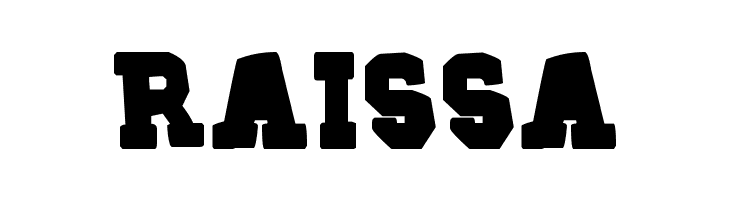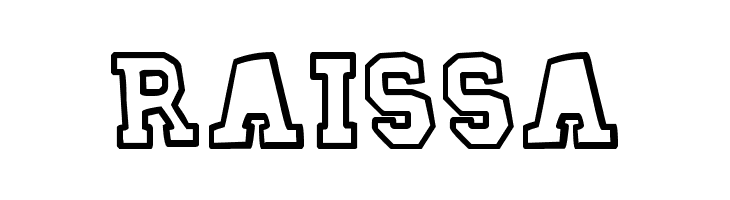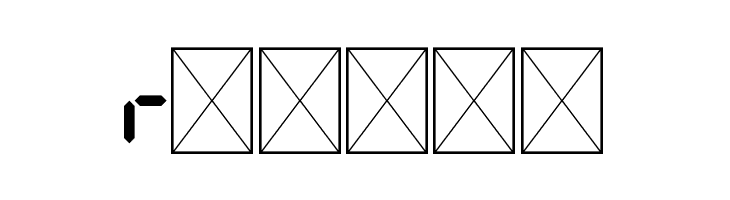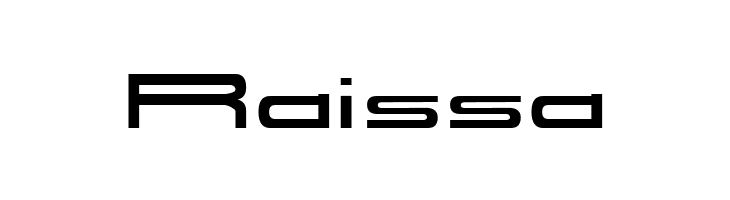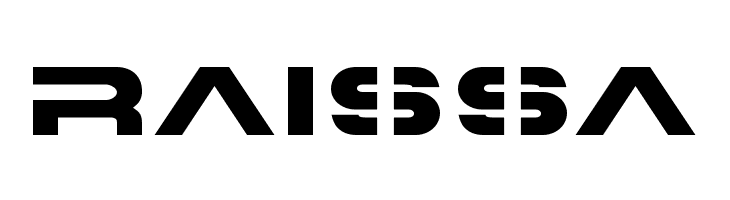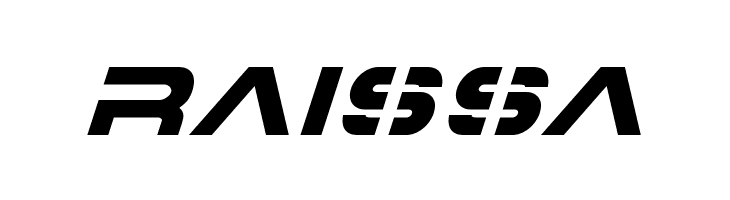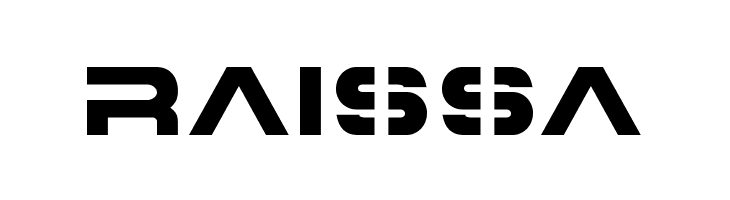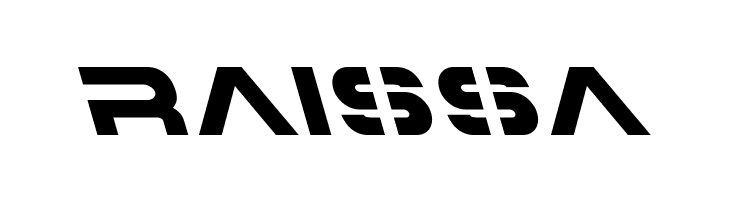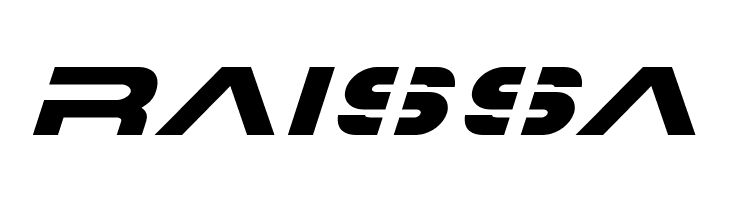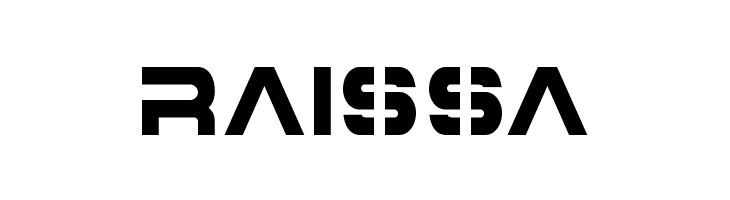
A bold, hand-drawn font with sharp, angular edges and a graffiti-like style.
A bold, geometric font with an industrial, futuristic style.
A segmented, digital display-inspired font with a geometric and mechanical style.
A bold, outlined font with geometric structure and modern appeal.
A bold, block-like font with a vintage athletic feel.
A digital seven-segment display-inspired font with a geometric, technical look.
A bold, futuristic font with geometric and industrial design elements.
A bold, geometric, and futuristic font with a condensed style.
A bold, futuristic font with geometric shapes and sharp angles.
A bold, expanded, and italicized font with a futuristic and dynamic style.
A bold, italic, futuristic font with geometric precision and dynamic style.
A bold, futuristic font with geometric shapes and stencil-like gaps.
A pixelated, retro-style font inspired by classic 8-bit video games.
A pixelated, outlined font inspired by classic 8-bit video games.
A bold, textured serif font with a grunge aesthetic and italic influence.
A retro, pixelated font with a bold, blocky design ideal for vintage digital themes.
A modern, geometric outline font with clean lines and a futuristic aesthetic.
A futuristic, geometric font with clean lines and consistent stroke width.
A playful, hand-drawn font with bold, rounded strokes and a casual style.
A playful, 3D cartoon-style font with bold outlines and rounded characters.
A bold, 3D italic font with outlined characters and a playful, dynamic style.
A bold, playful font with a hand-drawn, casual style.
A bold, condensed, and playful hand-drawn font with rounded characters.
A bold, condensed, and italic font with a dynamic and energetic style.
A bold, italic font with a playful and dynamic style.
A playful, hand-drawn font with bold, rounded strokes and a casual vibe.
A bold, condensed italic font with a dynamic and energetic style.
A playful, handwritten-style font with bold, rounded strokes.
A playful, handwritten-style font with bold, italicized characters and expanded spacing.
A bold, italicized handwritten font with a playful and dynamic style.
A playful, handwritten font with uneven strokes and a casual style.
A bold, italicized font with a dynamic, handwritten style.
A playful, handwritten font with bold, rounded strokes and a casual style.